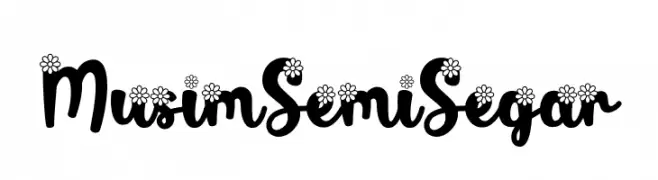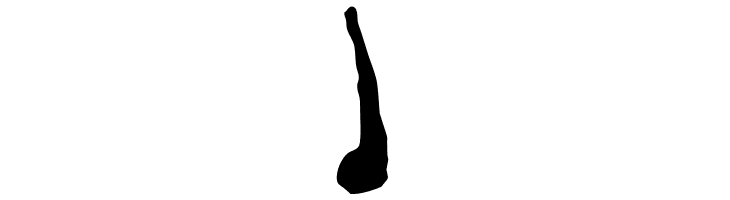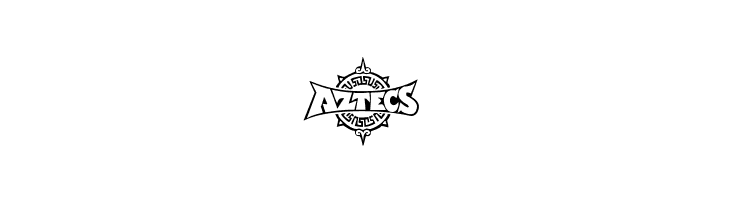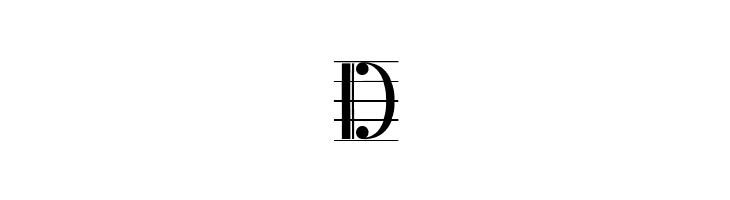
A bold, playful, hand-drawn font with a whimsical and artistic style.
A whimsical, mushroom-themed decorative font with intricate details.
A music-themed decorative font with elements of musical notation.
A playful, floral-accented decorative font with bold, rounded characters.
A bold, graffiti-inspired font with sharp, angular edges and a dynamic urban aesthetic.